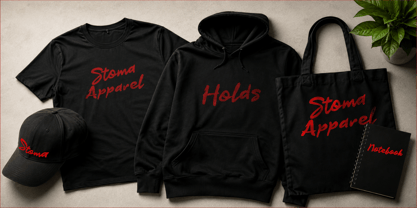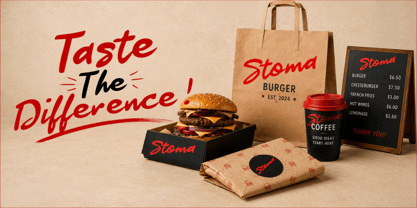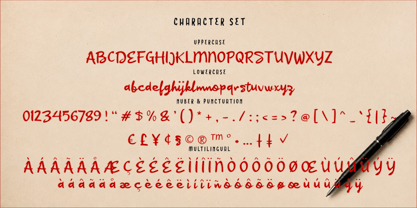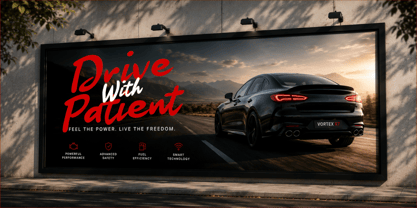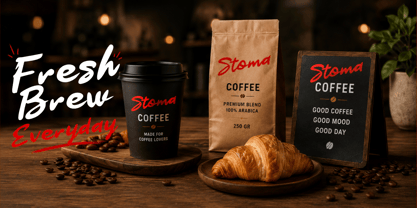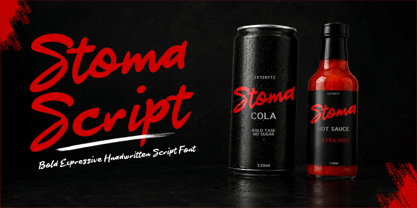
Stoma Script
Die Schriftfamilie Stoma Script wurde von Wahyu Eka Prasetya, Dian Angga Marytama entworfen und von Letterytz CalliType veröffentlicht. Stoma Script enthält 2 Stile und Familienpaketoptionen. Mehr über diese Familie
Stoma Script is a bold and expressive handwritten script font designed to bring energy, personality, and modern style to your creative projects. Featuring smooth brush-inspired strokes, natural curves, and a confident handwritten flow, this font delivers a strong visual impact while maintaining excellent readability.
Perfect for logos, branding, packaging, restaurant menus, product labels, apparel designs, social media graphics, posters, invitations, and advertising materials, Stoma Script adds a warm, authentic, and handcrafted touch to any design. Its versatile character makes it suitable for both contemporary branding and retro-inspired creations.
Whether you’re creating a standout logo, eye-catching merchandise, or memorable packaging, Stoma Script offers a dynamic and professional handwritten aesthetic that helps your designs leave a lasting impression.
• Regular
• Oblique
• Uppercase & Lowercase
• Numerals & Punctuation
• Multilingual Support
• Handwritten Script Style
• Smooth Brush Letterforms
• High Readability
• Print & Digital Friendly
• Suitable for Branding and Packaging
Logos, Branding, Packaging, Product Labels, Restaurant Designs, Café Branding, Merchandise, Posters, Social Media Content, Advertising, Invitations, Signage, and Creative Display Projects.